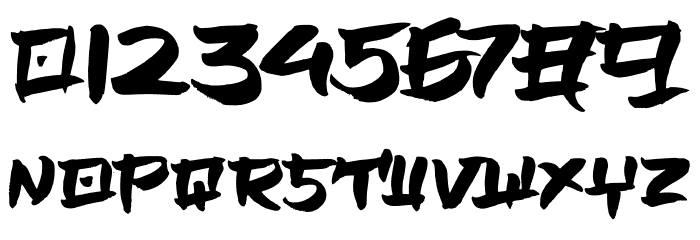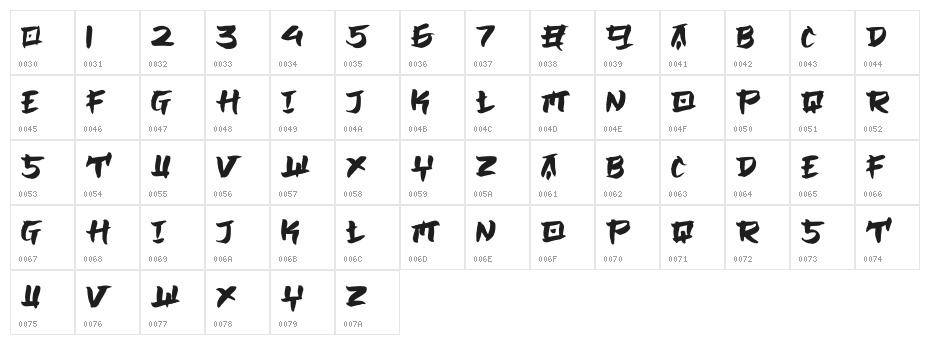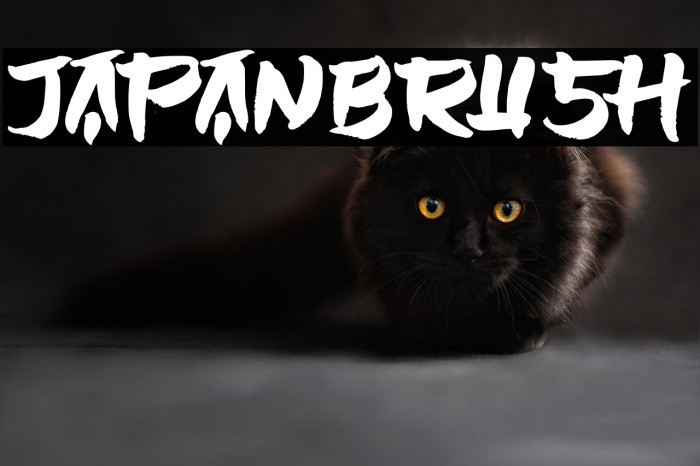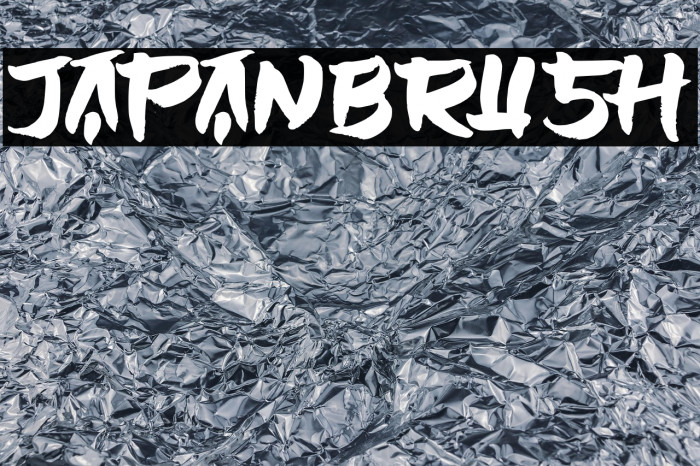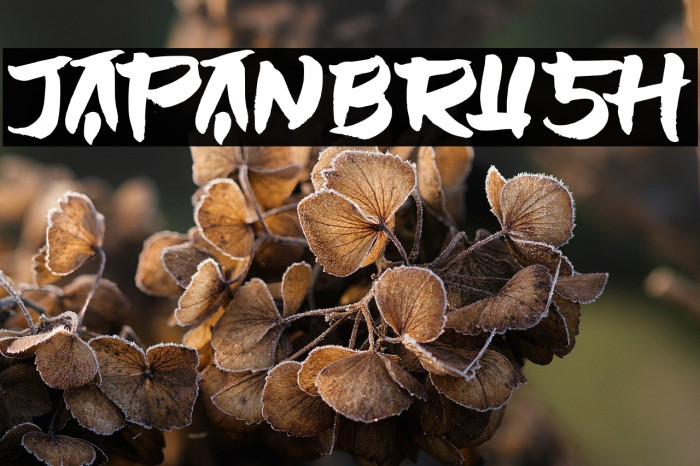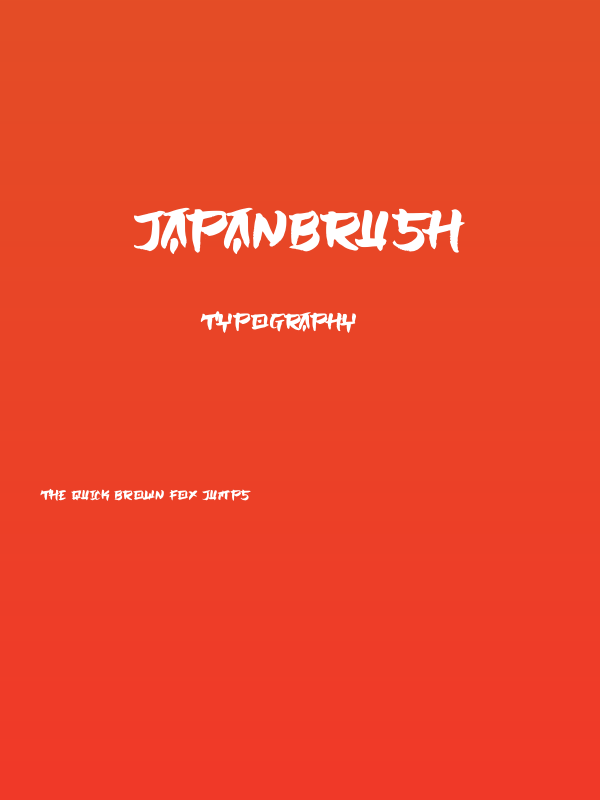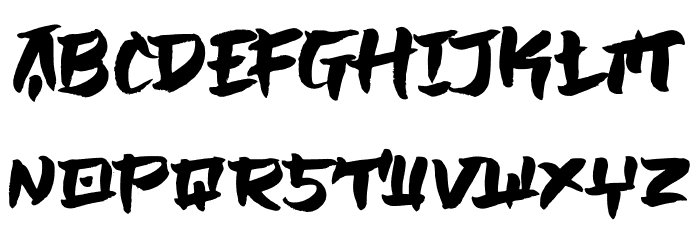
JAPANBRUSH Font
JAPANBRUSH Description
This font features a bold, brushstroke style that evokes a sense of dynamic movement and artistic flair. The characters are crafted with thick, expressive strokes that vary in width, giving each letter a unique and energetic appearance. The overall design is reminiscent of traditional calligraphy, with a modern twist that makes it suitable for contemporary applications. The uppercase and lowercase letters maintain a consistent style, while the numerals and special characters integrate seamlessly, ensuring versatility across different uses.
Proposed ProjectsIdeal for projects that require a bold and artistic touch, such as posters, branding, packaging, and creative headlines.